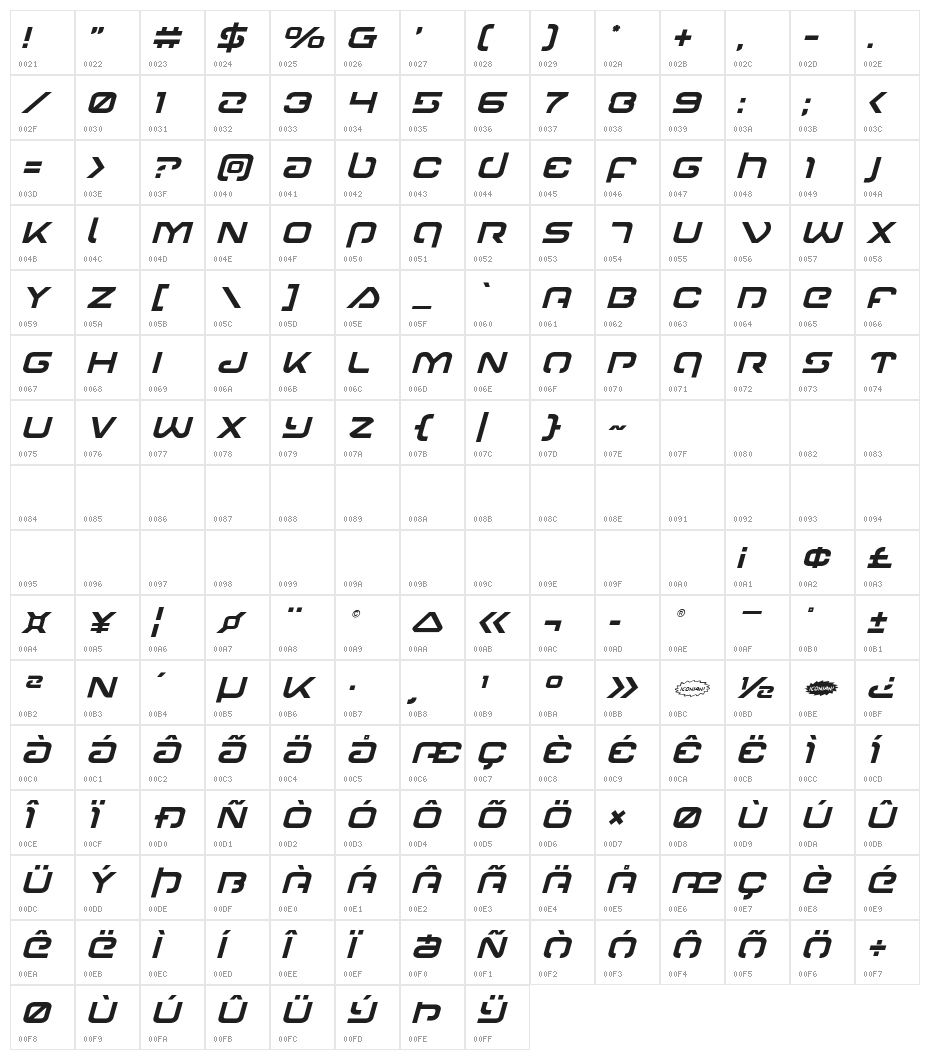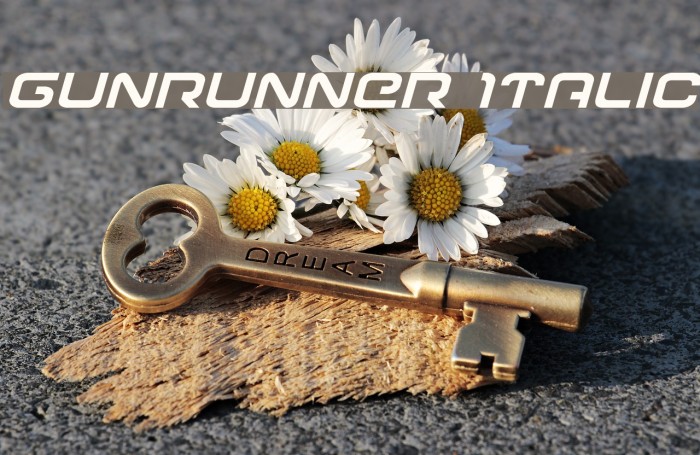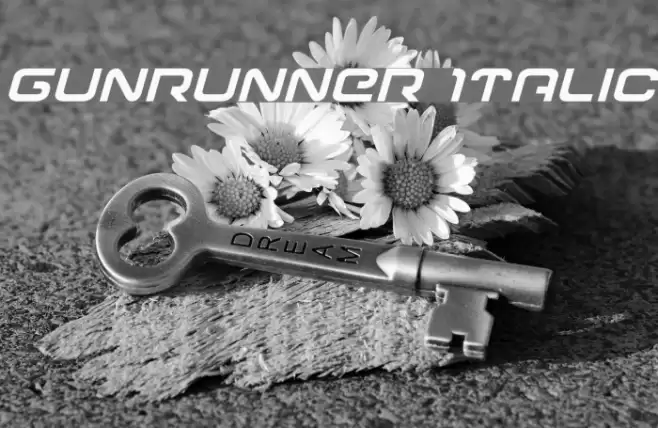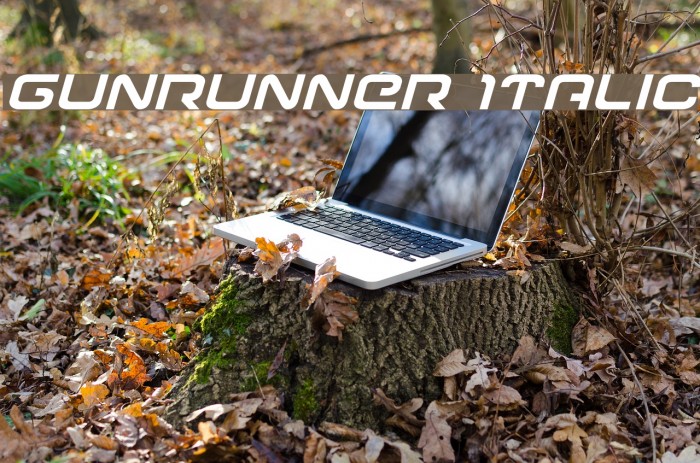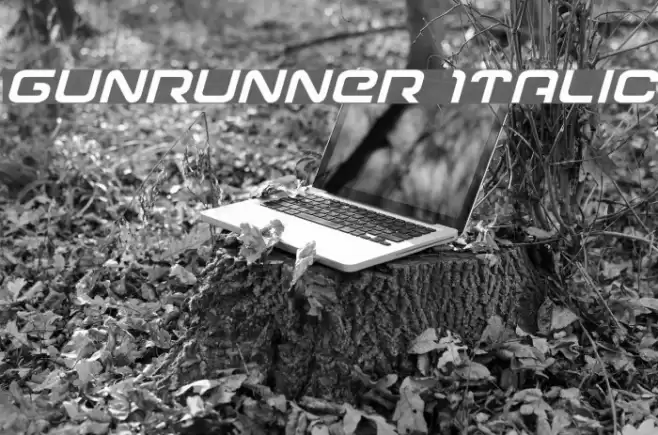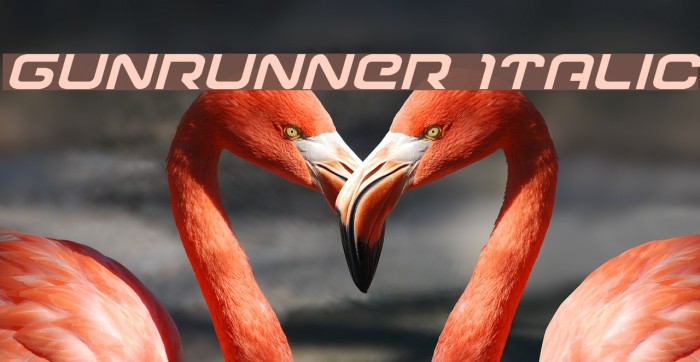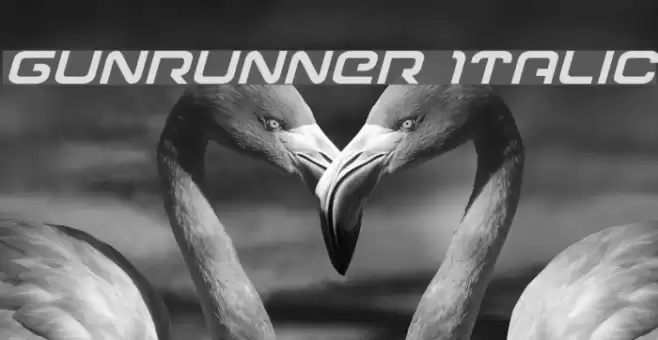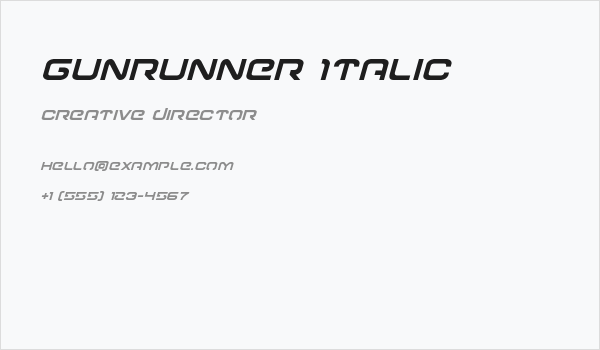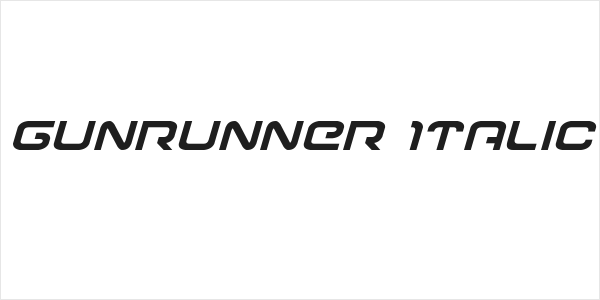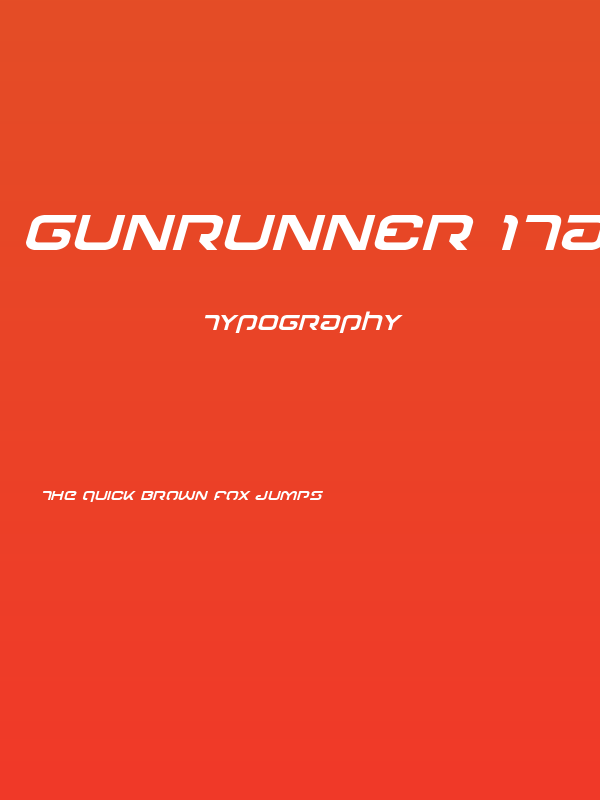
Gunrunner Italic Font
Gunrunner Italic Description
This font features a sleek, modern design with a distinct italic slant, giving it a dynamic and forward-moving appearance. The characters are slightly condensed, enhancing its streamlined look. The strokes are consistent in weight, providing a uniform appearance across all characters. The font includes both uppercase and lowercase letters, numerals, and a variety of special characters. Its futuristic style is evident in the angular cuts and smooth curves, making it suitable for projects that require a contemporary and edgy feel.
| Use Case | Logos, Headlines, Branding |
| Proposed Projects | Ideal for technology branding, sports team logos, video game titles, and sci-fi themed projects. |